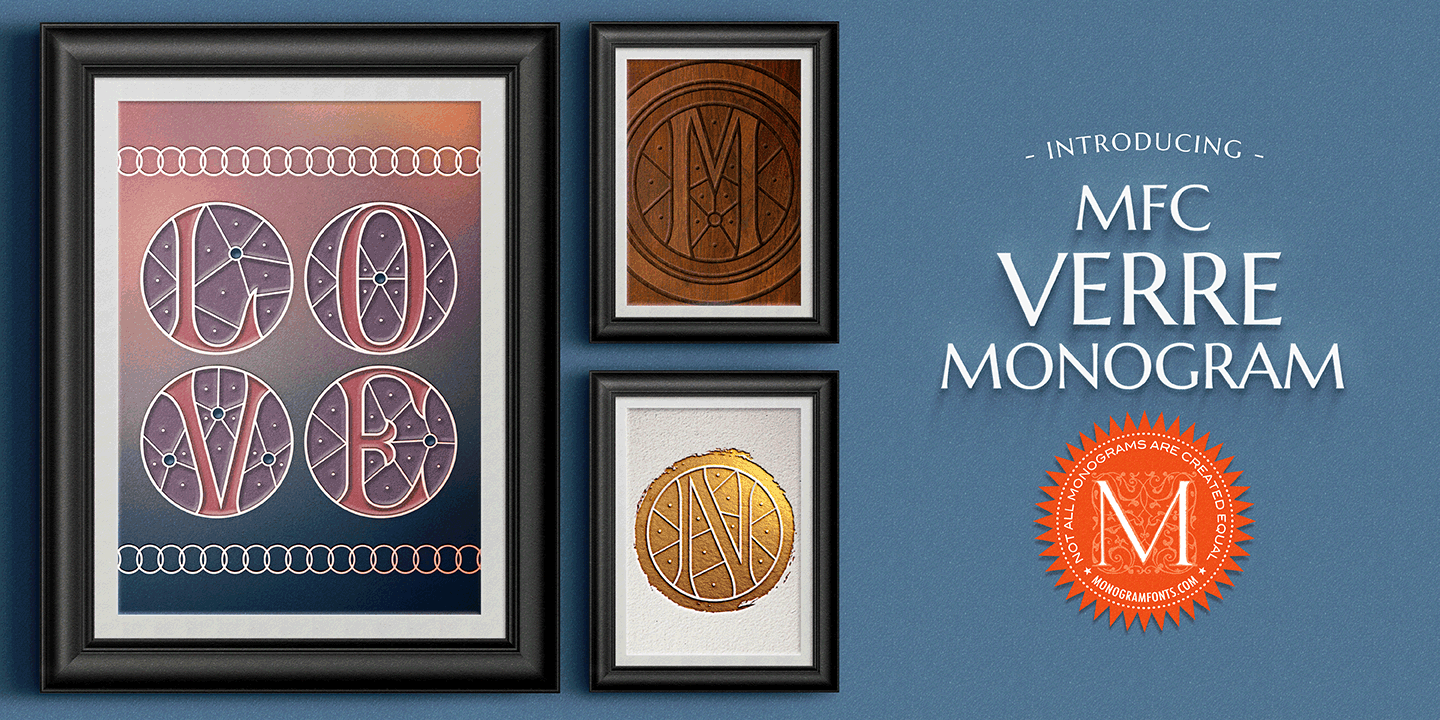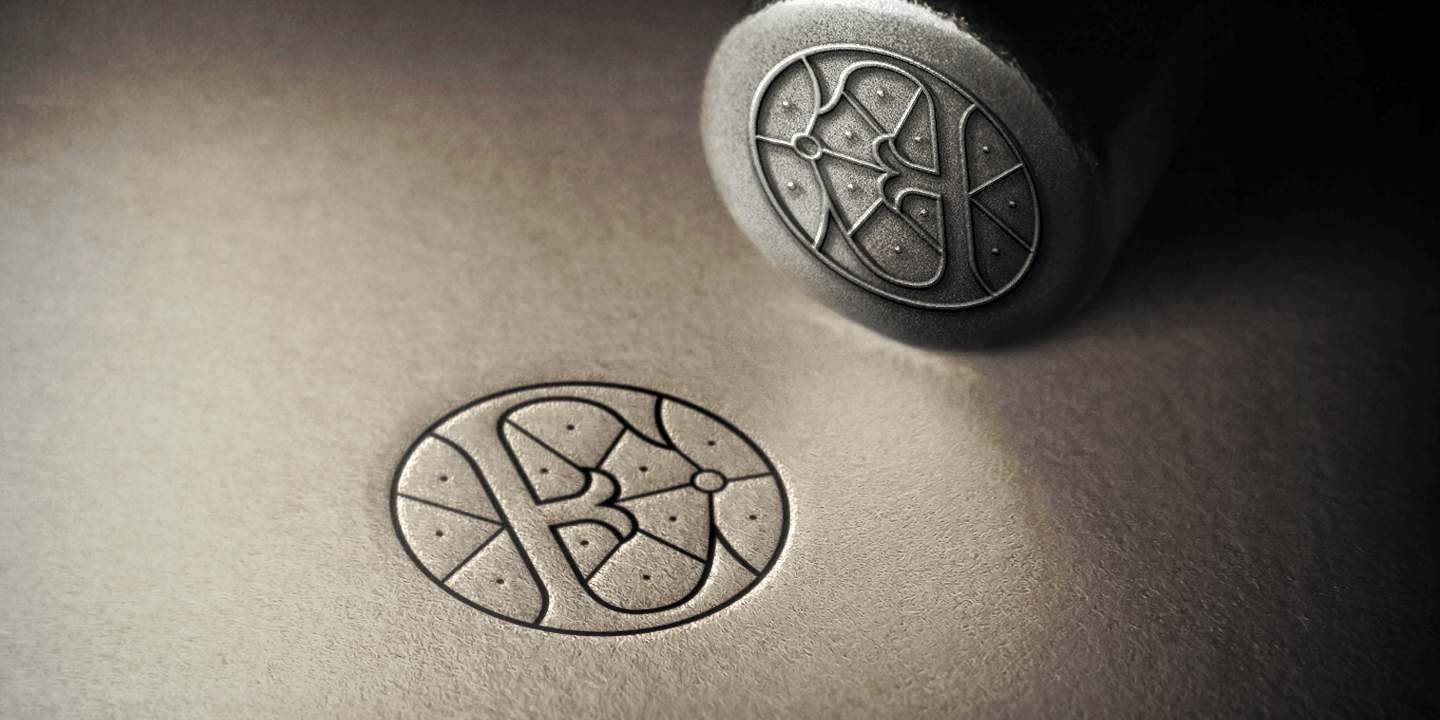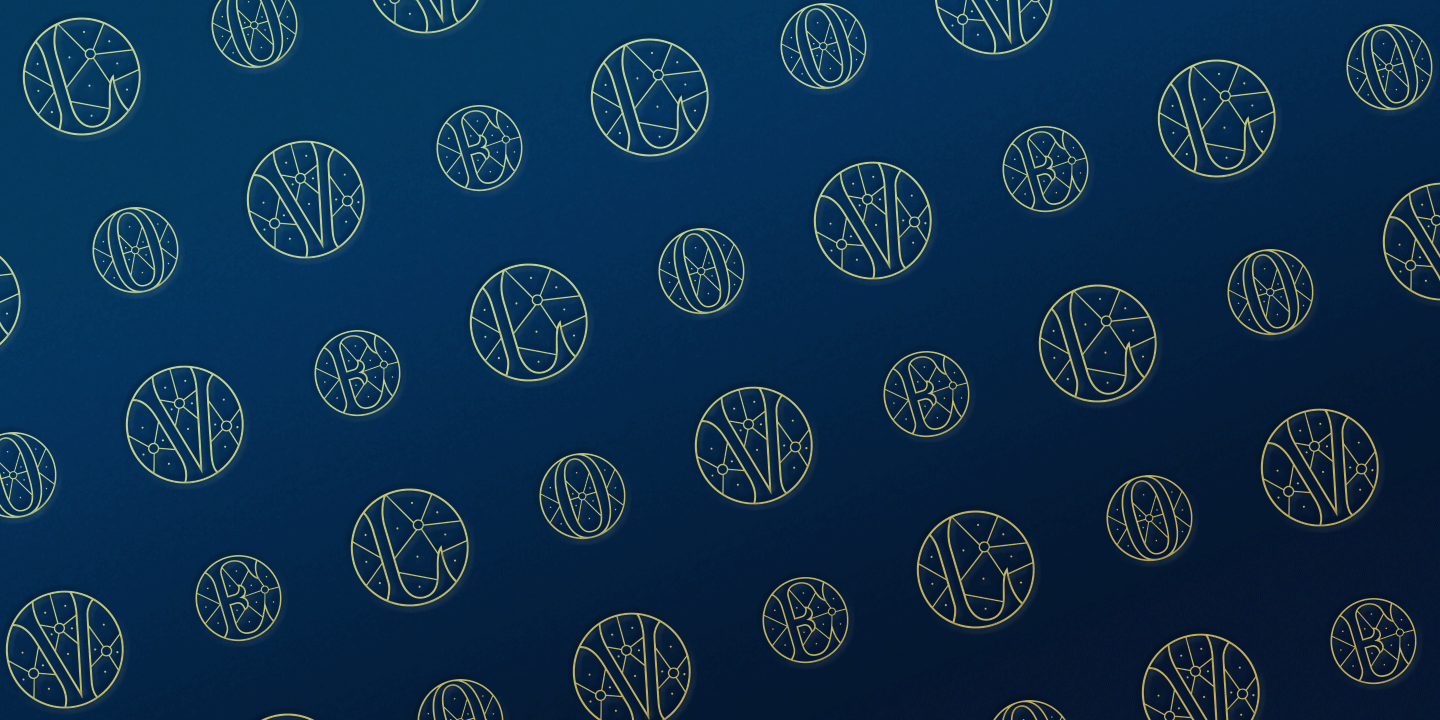
About MFC Verre Monogram
The inspiration source for Verre Monogram is an unusual hand-drawn letterset from a vintage embroidery publication which comes off more as a Drop Cap or Initial lettering style than monogram. Although its original intention is uncertain, it has many possibilities.…